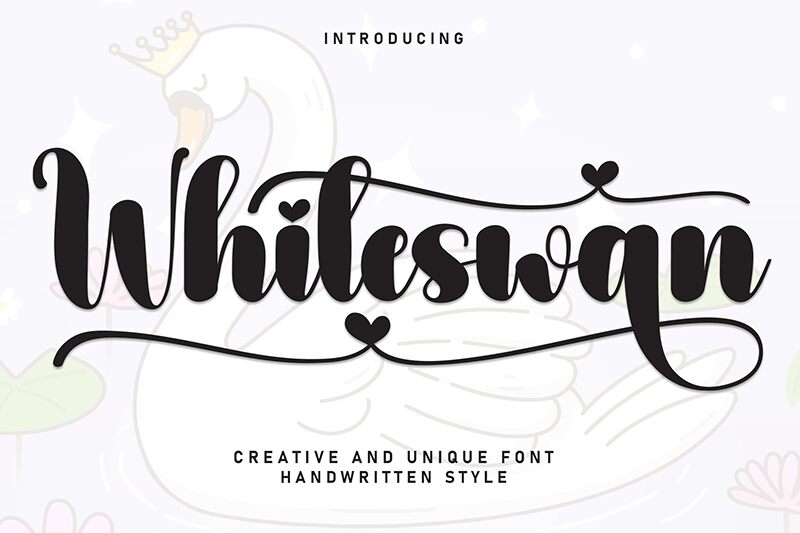
Whiteswan
Whiteswan font by Andi Moz is an elegant brush design, showcasing a bold and expressive style with a flowing ornamental touch. Its romantic appeal and stylish look offer it a versatile functional aspect for both professional and personal creations and an attractive vibe that can stand alone or as part of its environment
Use this free brush font to create product packages of cosmetics or perfumes, magazines or blogs about beauty or fashion, wall decorations for shops or homes, designs related to essential oils, opulent logo designs, etc.